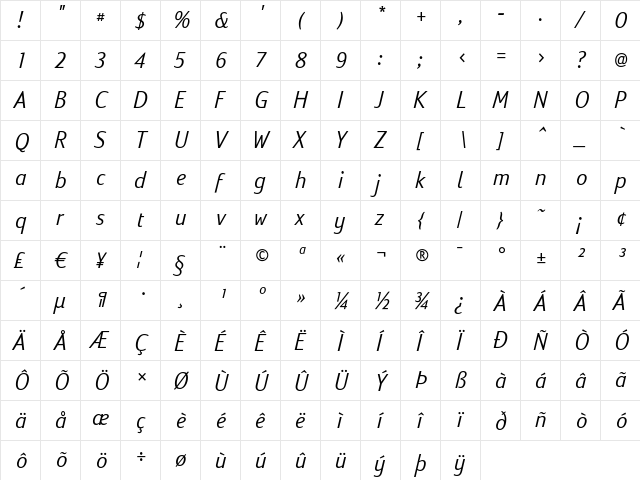
Fargo Lt DaMa Italic
| Foundry | Dalton Maag Ltd. |
| Designer | Dalton Maag Ltd. |
Design Context for Fargo Lt DaMa Typeface
Fargo Lt DaMa is a composed and adaptable typeface that performs quietly and consistently across a wide range of design contexts. The dynamic lean of this cut emphasises speed and emphasis in any layout. Its slender proportions lend an understated elegance to any composition.